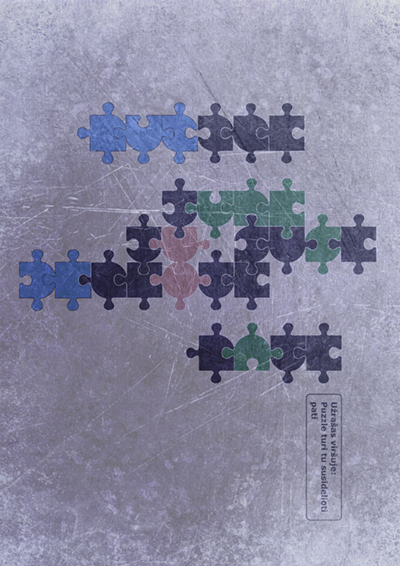
Puzzle, a dynamic dingbat font designed by FontLab, offers a whimsical and captivating visual language. Its playful, puzzle-piece-inspired shapes create a sense of intrigue and interactivity, making it an ideal choice for a wide range of design applications. From editorial layouts and packaging to branding and digital interfaces, Puzzle's striking aesthetic can lend a touch of creativity and playfulness to any project.
Its versatility extends beyond the purely decorative, as the font's unique symbols can also serve functional purposes, such as iconography or interface elements. Puzzle's distinctive character is sure to engage and delight audiences, adding a touch of personality to any design.